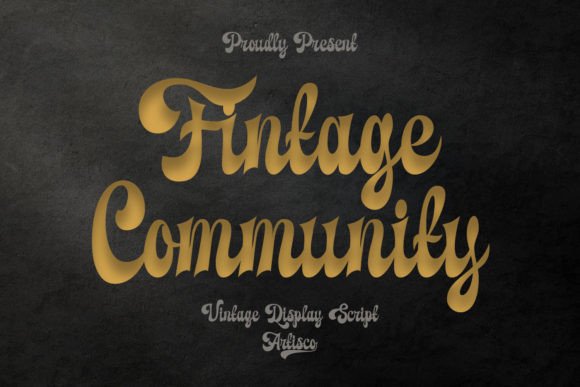
Journey back in time to an era of captivating nostalgia with Fintage Community Font, the enchanting script font inspired by the golden age of advertising, labeling, and signage. This remarkable font family, meticulously crafted by the talented artisco99, captures the essence of retro charm, transporting you to a world where classic designs ruled supreme.
Unleash your creativity with Fintage Community Font, the ultimate choice for remarkable wine labels. Its timeless style adds a touch of sophistication and elegance to your creations, leaving an unforgettable impression on your audience. Whether you're a budding designer or a seasoned professional, this font will elevate your designs to new heights of visual allure.
Embrace the versatility of Fintage Community Font, a modular and multifunctional masterpiece that seamlessly blends with any other font without sacrificing its distinctive retro lineal style. Craft captivating headlines, compelling short copy, or add a touch of vintage charm to your merchandise, products, branding, and logotype. The possibilities are limitless with this versatile font.
Indulge in the joy of using Fintage Community Font, a typeface that exudes happiness and positivity. Its playful and inviting characters create a warm and welcoming atmosphere, perfect for projects that aim to connect with audiences on an emotional level. Experience the joy of crafting designs that resonate with your audience, leaving them with a lasting impression of your brand.
Fintage Community Font is not just a font; it's a gateway to a bygone era, where nostalgia and creativity intertwine to create something truly remarkable. Download Fintage Community Font today and embark on a creative journey that will transport you to a world of retro elegance and timeless beauty. Let your designs shine with the charm of the past and the vibrancy of the present.